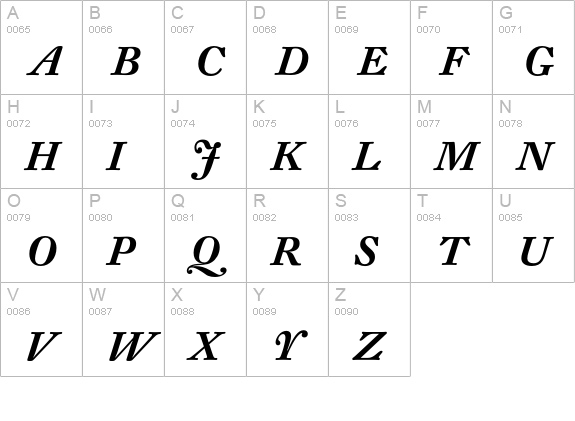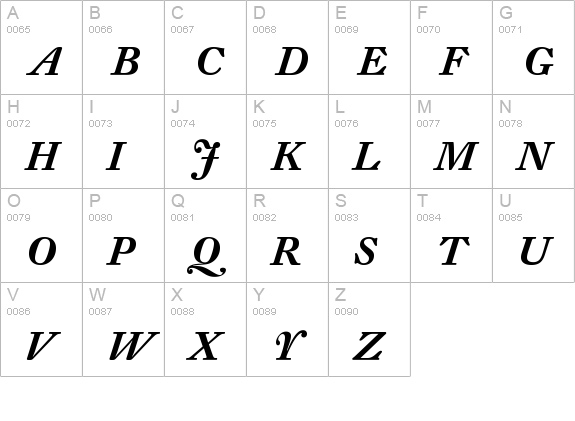
DTLFleischmannST-MediumItalic Font Details
The DTLFleischmannST-MediumItalic font exudes elegance and sophistication with its sleek and modern design. Its medium weight and italic style make it perfect for adding a touch of finesse to any project. This versatile font is ideal for various design applications, from branding to editorial design. And the best part? You can get this stunning font for free! Yes, that's right, the DTLFleischmannST-MediumItalic font is freely available to download at FontsMarket.com. Don't miss out on the opportunity to elevate your designs with this beautiful typeface. Download it today and let your creativity shine!